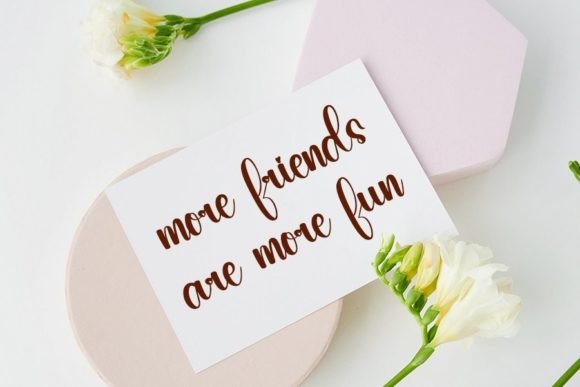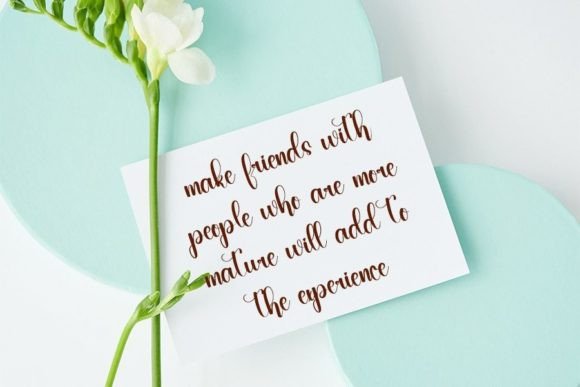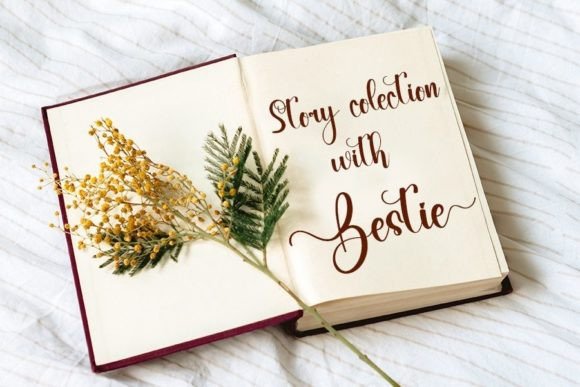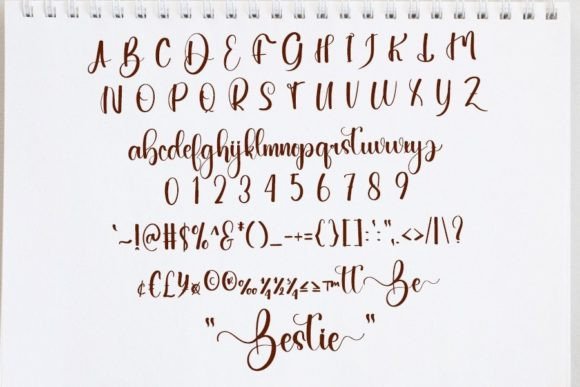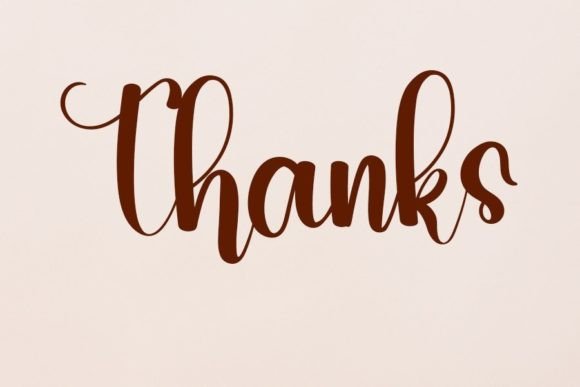
Discover the Timeless Beauty of the Bestie Font
Do you remember the moment when you stumbled upon the perfect font to match your creative vision? For designers, finding that perfect font can be a game-changer. It’s the moment when your design comes to life, and everything just clicks into place. This is exactly what happens when you fall in love with the Bestie Font.
Bestie is a beautiful handwritten font that adds an elegant touch to any project. Its unique style is both timeless and distinct, making it perfect for designers who want to create spectacular designs that stand out. Whether you’re working on a branding project, a social media campaign, or a personal creative endeavor, the Bestie Font is a valuable addition to your design toolkit.
Bestie Font Key Features
- Font Family: Bestie
- Unique Characteristics: Bestie is a handwritten, cursive font with a playful, whimsical feel. It features connected letters and subtle flourishes, making it perfect for creative and informal projects.
Bestie Font Review
I’ve had the chance to work with the Bestie font, and overall, I’m impressed with its unique charm. ✨ One of the standout features is its friendly, approachable feel, making it perfect for casual projects or social media graphics. It’s also highly customizable, allowing designers to experiment with various styles and pairings.
Some of the font’s strengths include its:
- Highly legible and readable text
- Playful, yet sophisticated aesthetic
- Extensive character set, including a range of ligatures and glyphs
However, I do have some concerns with the Bestie font. ⚠️ Firstly, it may not be the best choice for formal or professional projects, as it can come across as too casual. Additionally, the font’s many styles and variations can make it overwhelming to navigate and use effectively.
Overall, I’d recommend the Bestie font for designers looking to add a touch of whimsy and personality to their work. While it may have some limitations, its unique charm and customization options make it a valuable addition to any designer’s toolkit.
Use the Bestie font to add a playful and modern touch to your designs. Experiment with different font sizes and styles to create visual interest.
The Bestie font is perfect for:
- Wedding invitations and decorations
- Children’s products and packaging